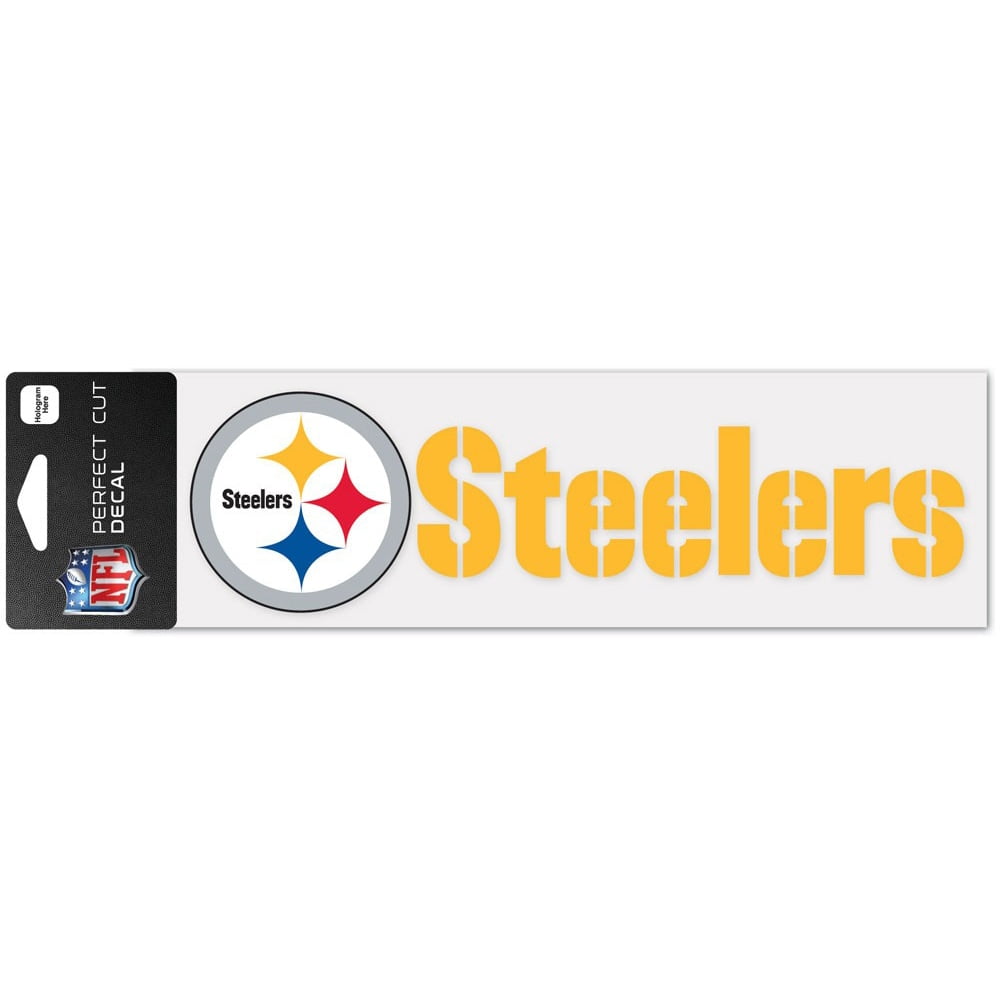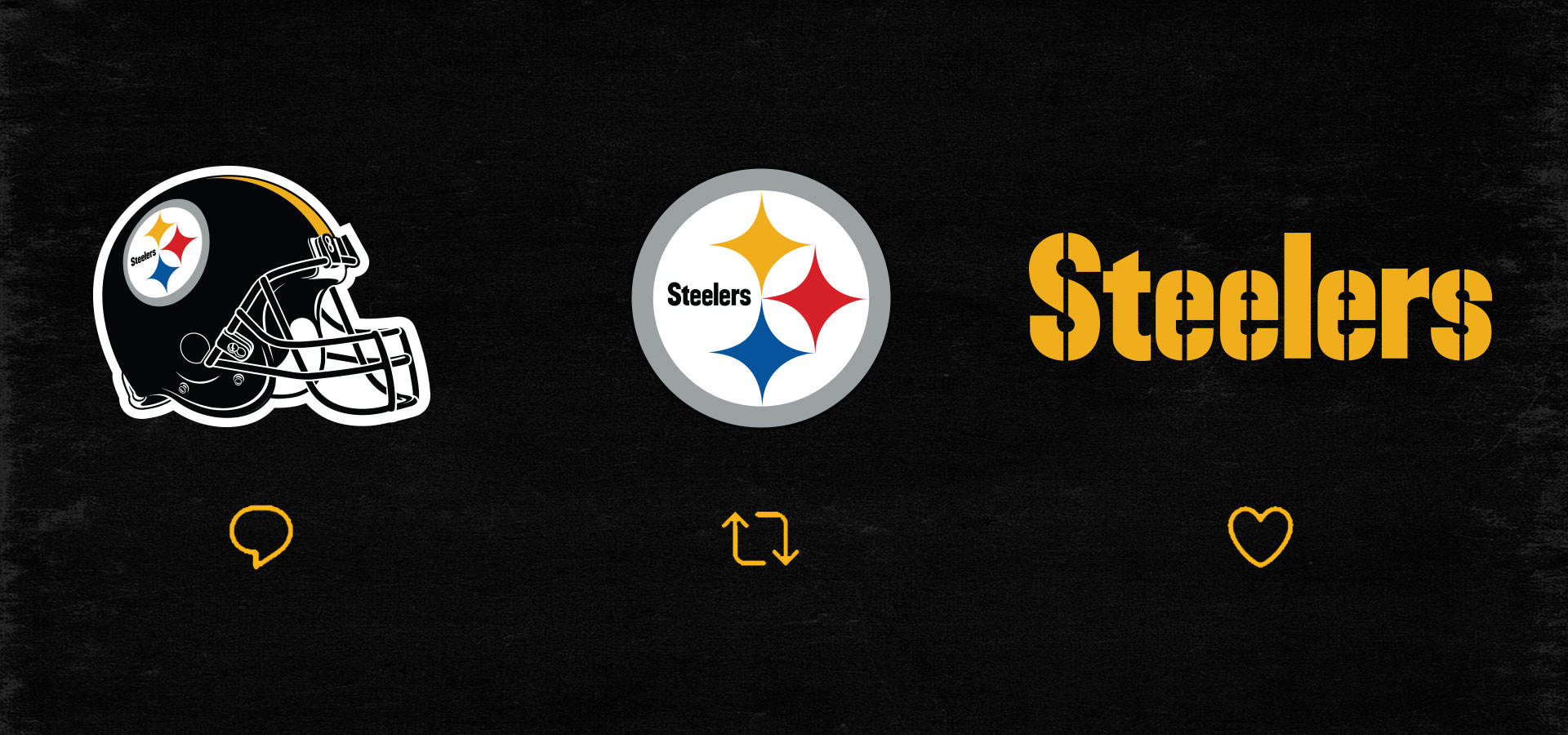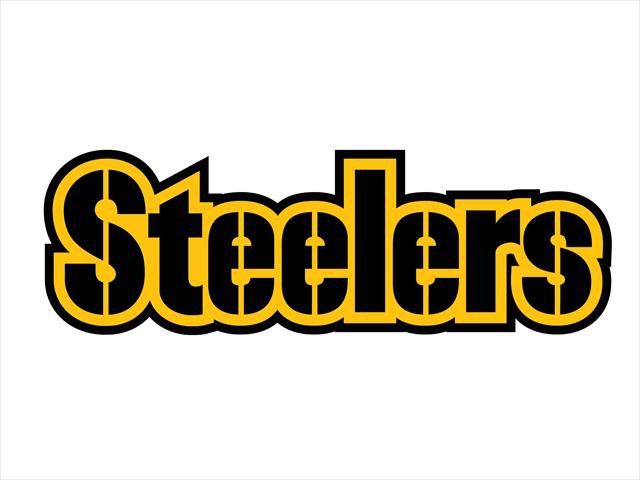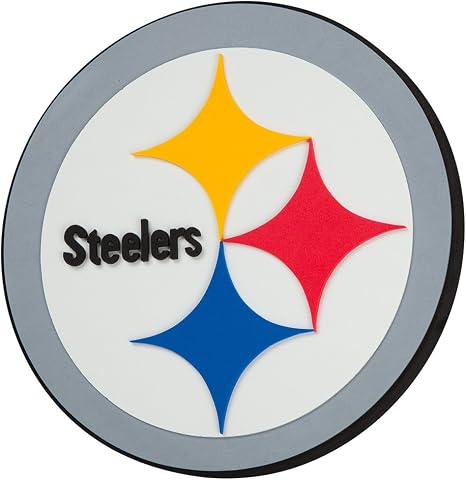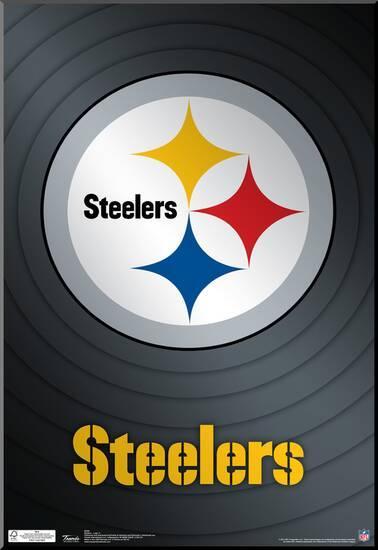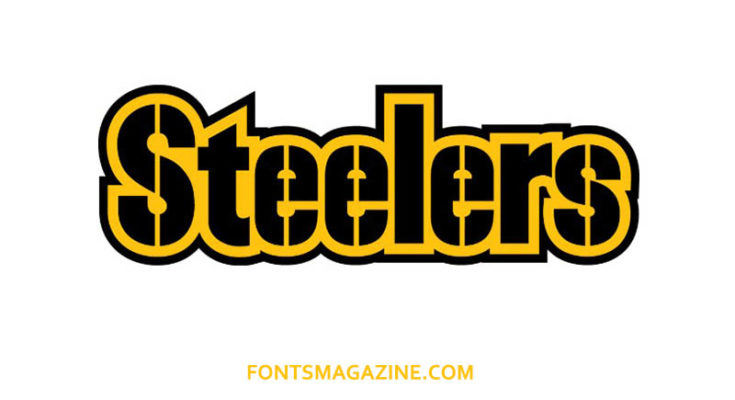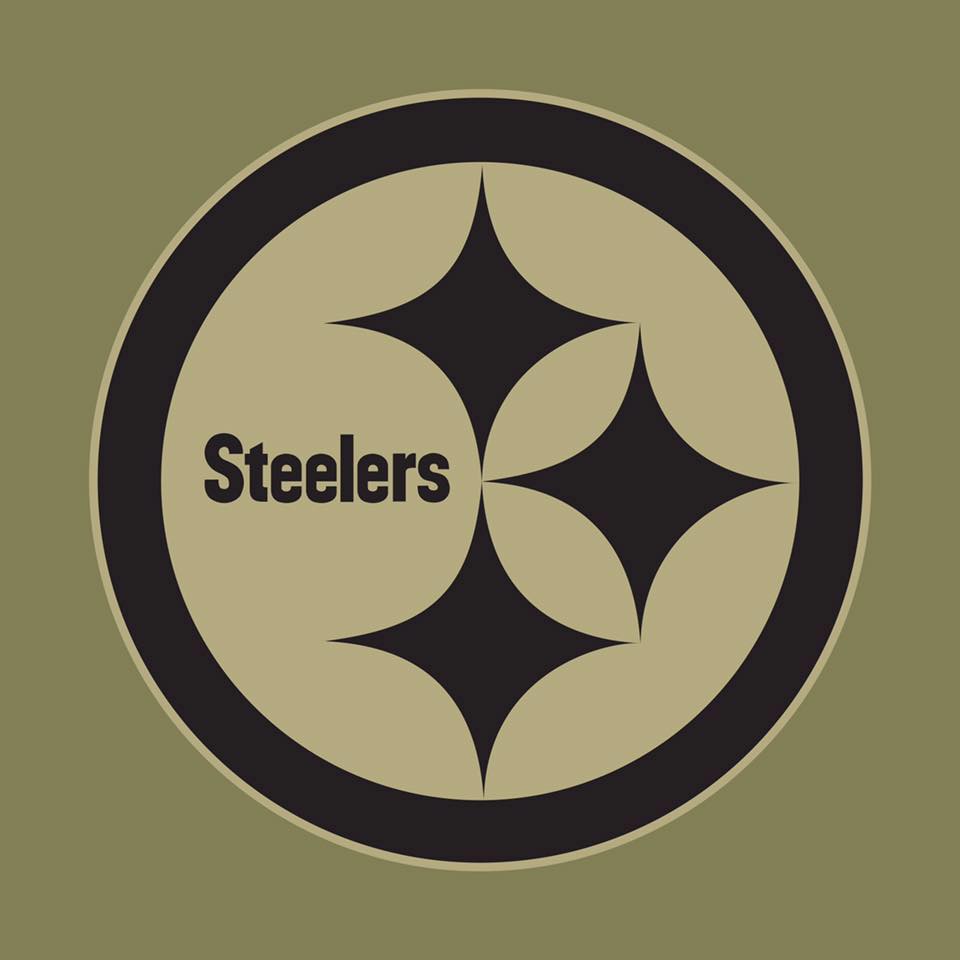
The font used for Pittsburgh Steelers logo is very similar to Arial Condensed Bold which is a grotesque sans serif font designed by Patricia Saunders Robin Nicholas and published by Monotype.
Logo steelers font. It without a doubt grabs reputation and is exceptional for a more immoderate type extravagant messages. Pittsburgh Steelers Logo Dallas Cowboys Logo Pitsburgh Steelers Steeler Football Season Cricut Vinyl Vinyl Decals Cricut Fonts Super Bowl. The logo Indeed uses the Arial Rounded MT Bold font.
In 1997 the team switched to rounded numbers on the jersey to match the number font Futura Condensed on the helmets though during the preseason and Week 1 player names remained in a block lettering and a Steelers logo was added to the left side of the jersey. Logo fonts are essential for the visual appearance of your brand name. Version Macromedia Fontographer 41 12005.